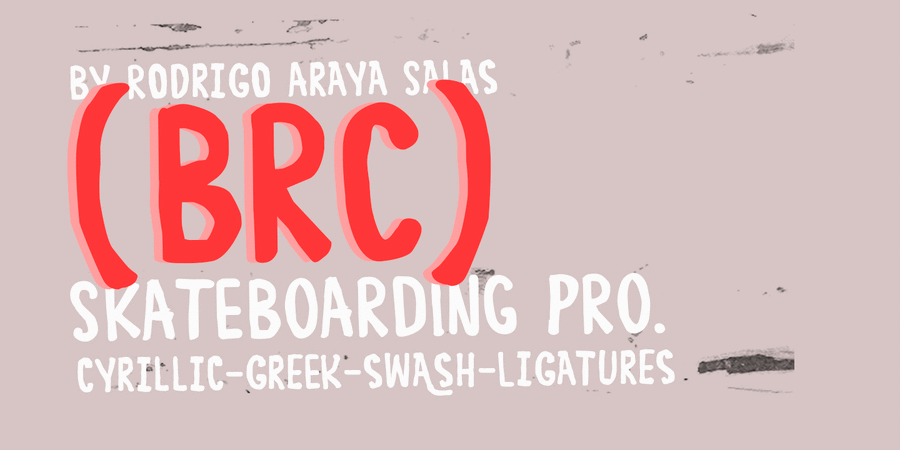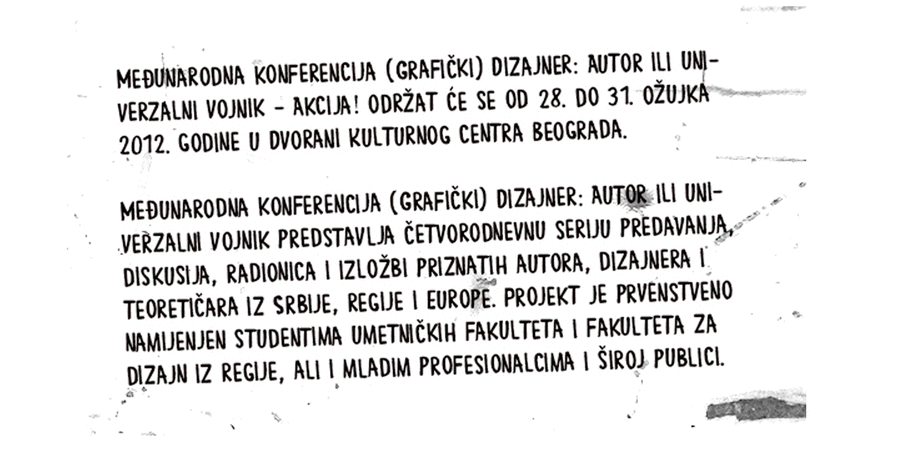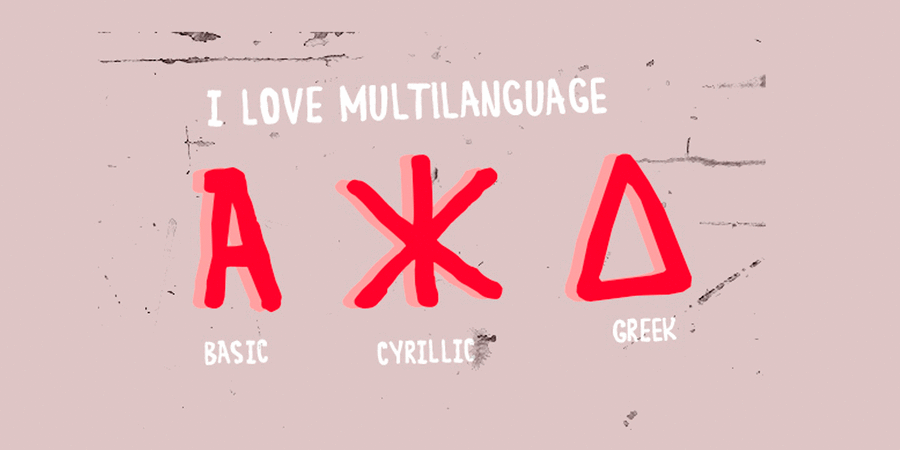
BRC (1 font)
BRC is an informal handwritten font with a bold street mood, supporting many European languages, as well as Cyrillic and Greek. This font has rich possibilities in the form of alternative glyphs, swashes and rare ligatures. Typeface was Designed by Rodrigo Araya Salas in 2014.
street, domestic, urban, daring, craft brewed, informal, cartoonish, manual, economical, naive, man-made, handicraft, home-made, tall, original, alive, distinctive, playful, notable, home, expressive, slovenly, agile, restless, tough, funny, cute, impudent, dangerous, extremal, Artisanal, careless, yelling, vernacular, dynamic, boyish, nervous, incendiary